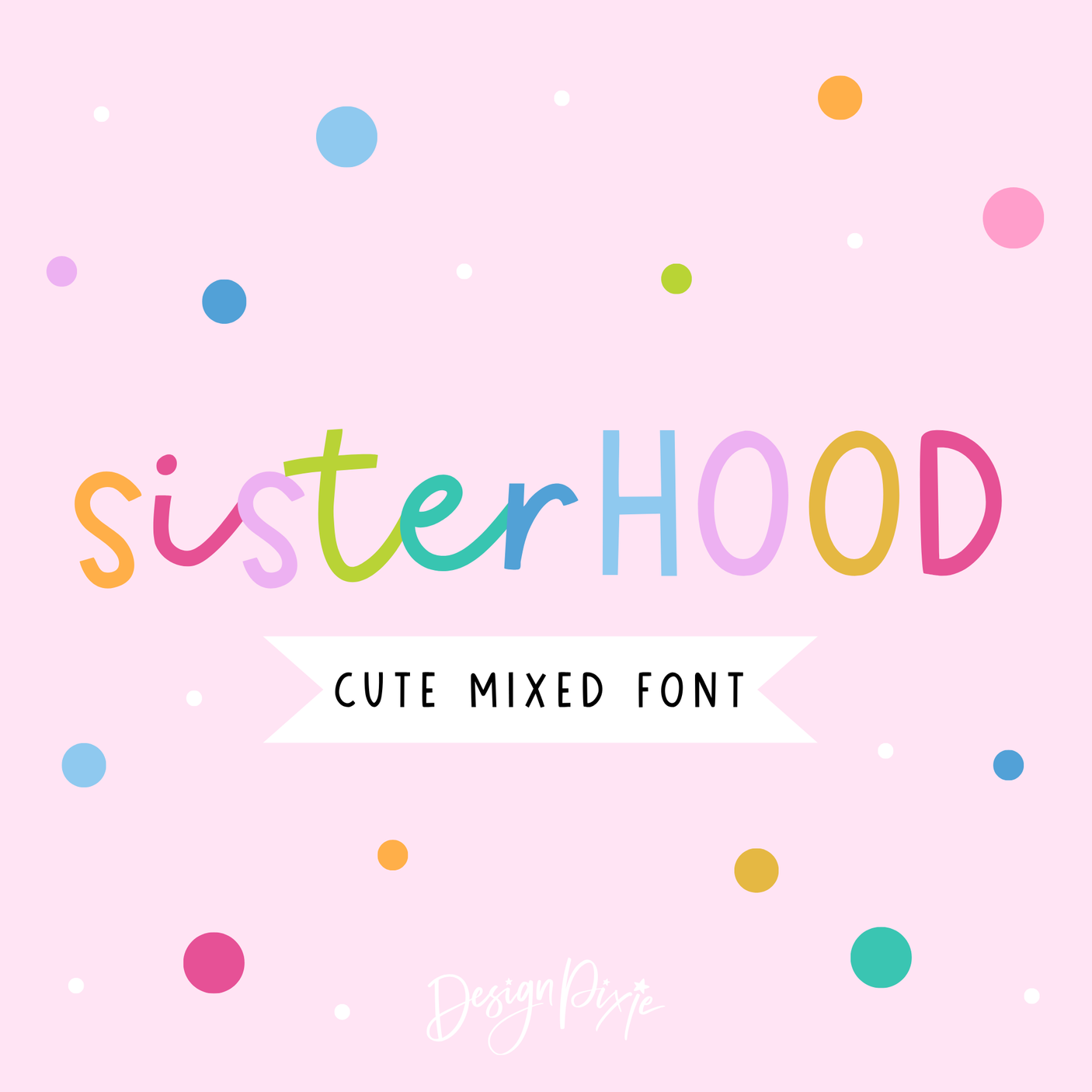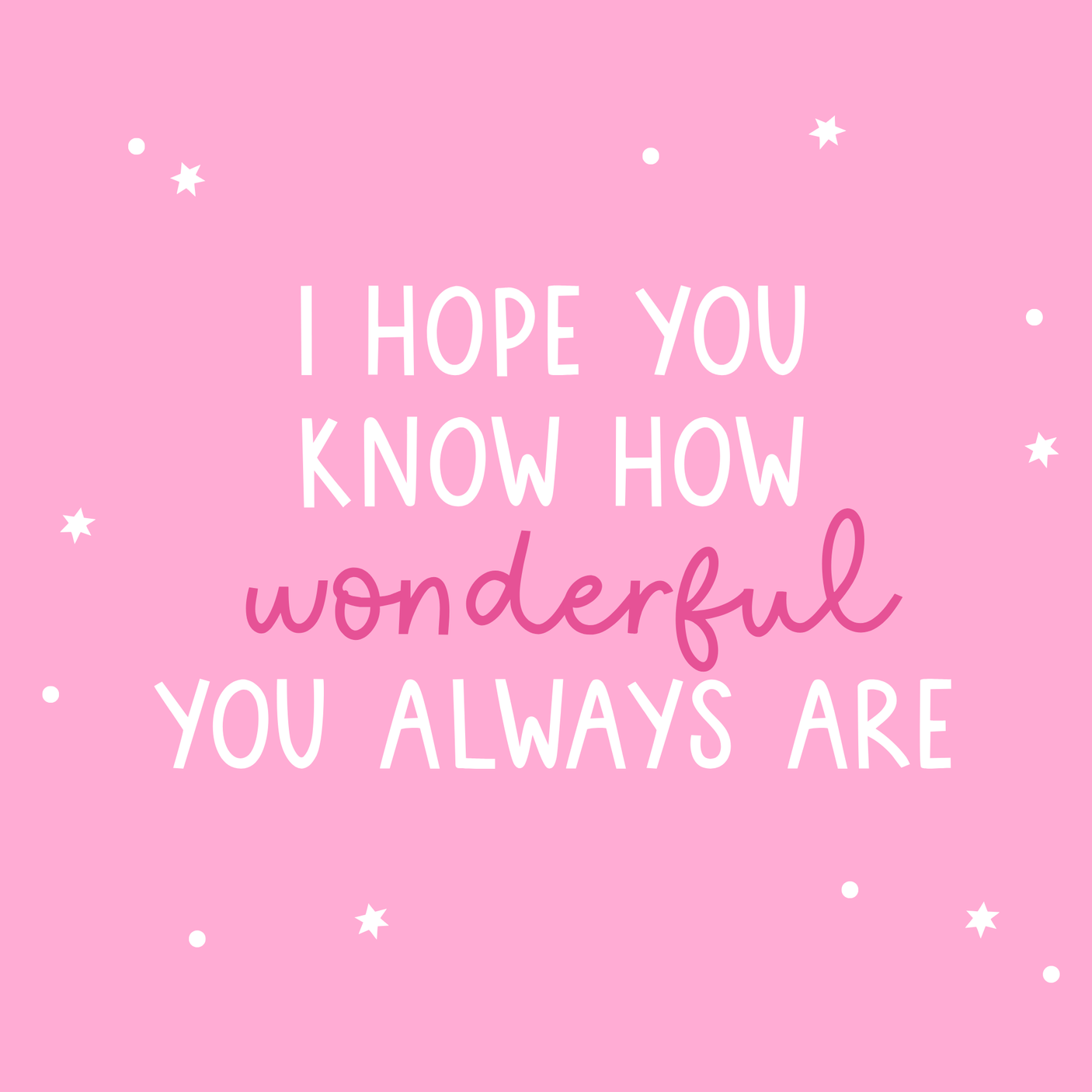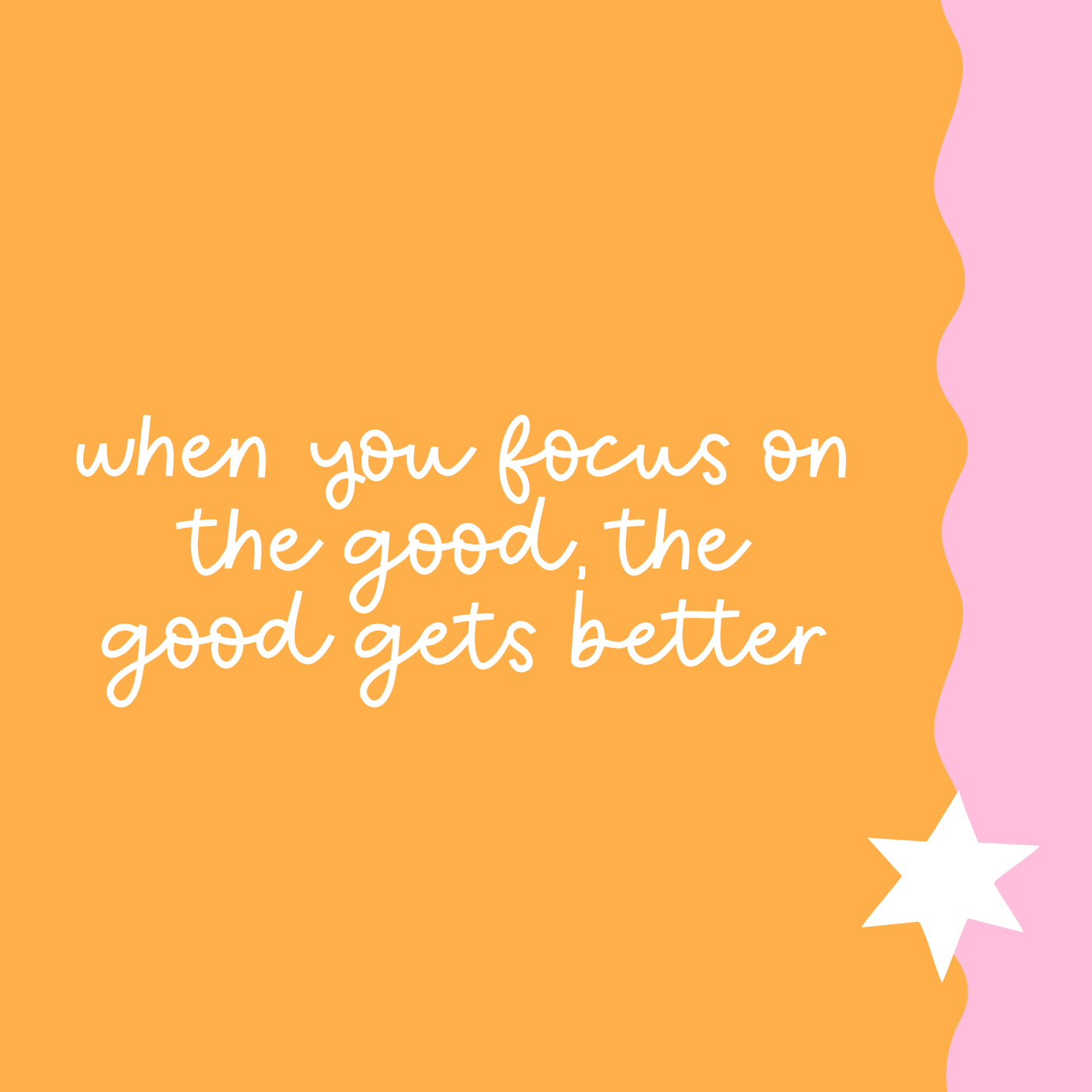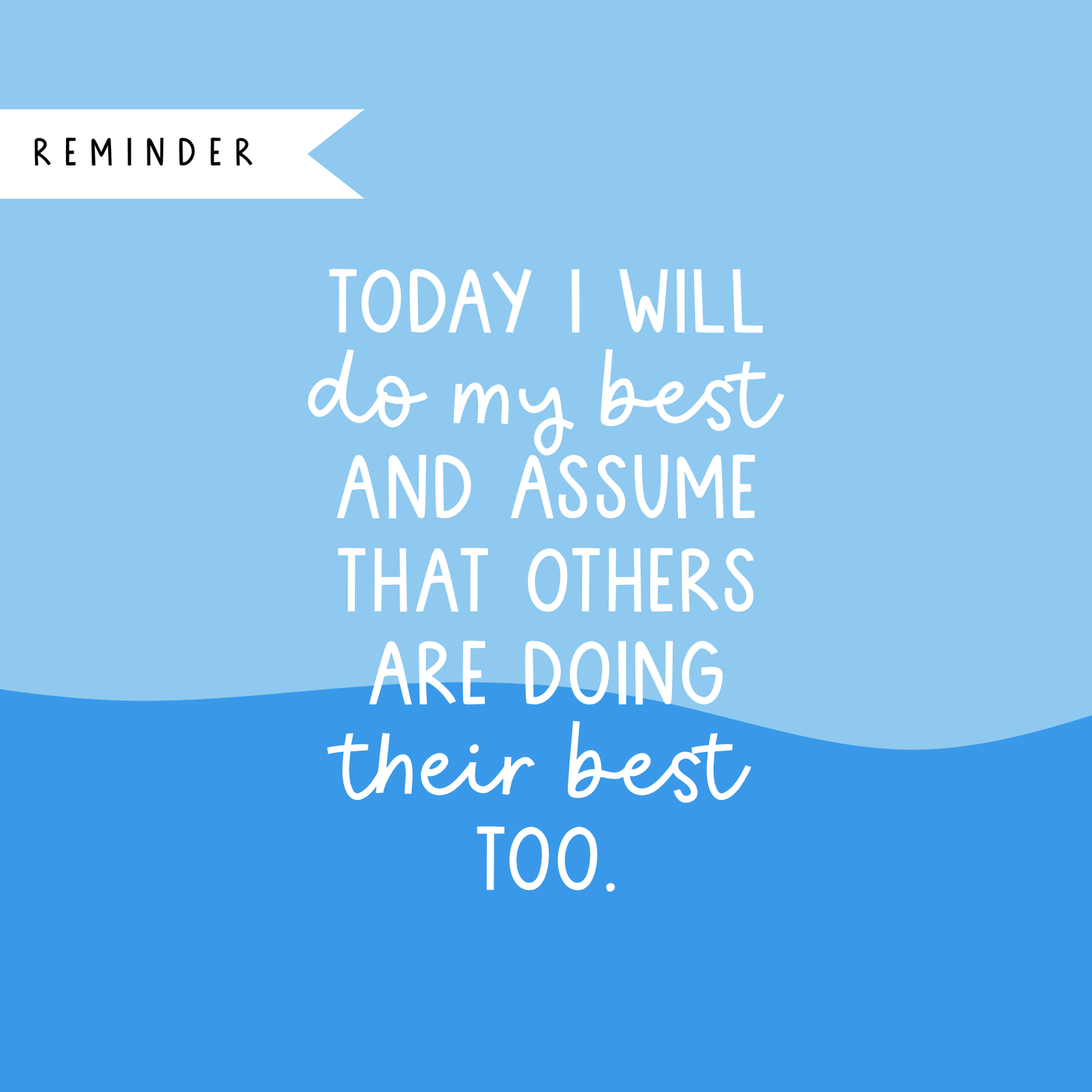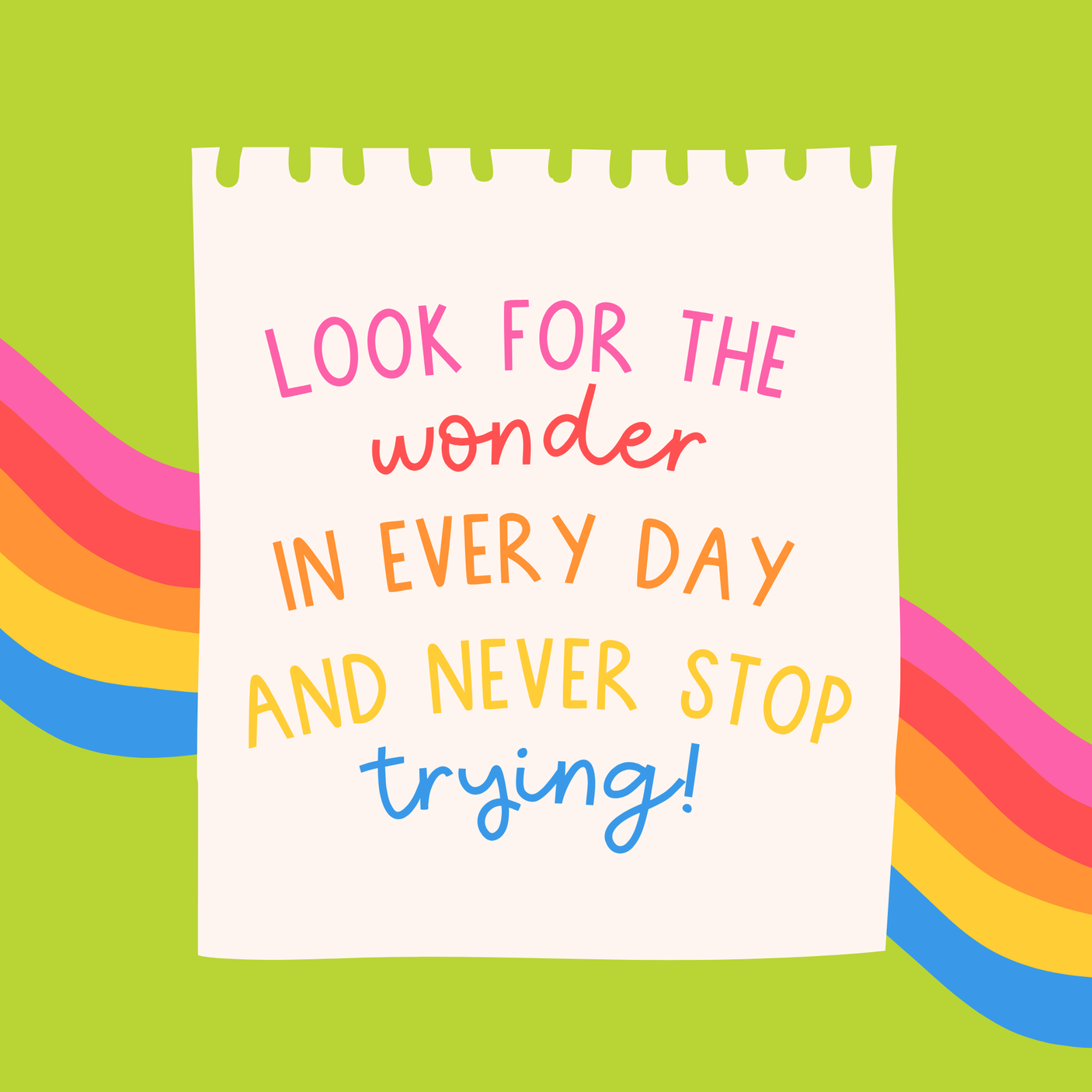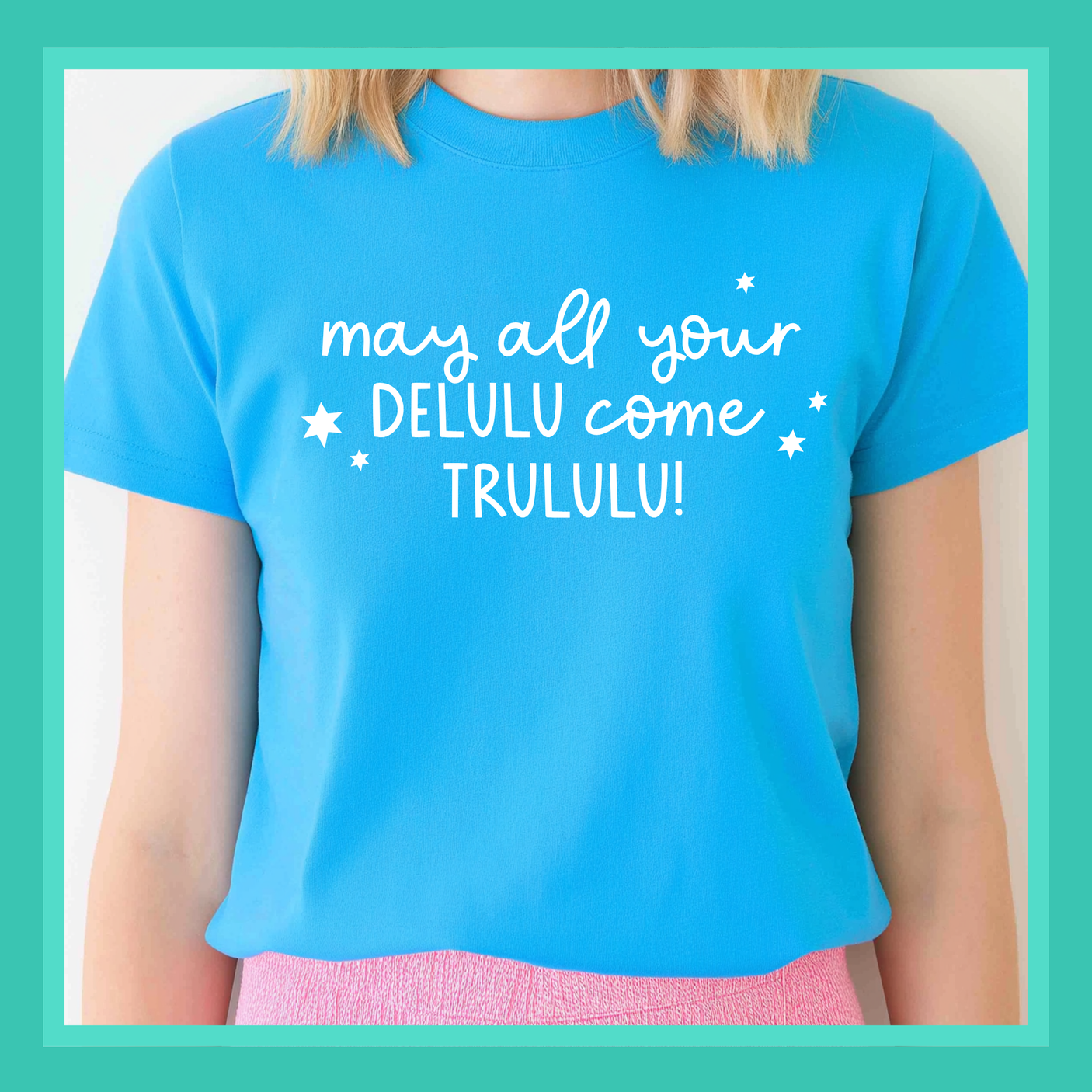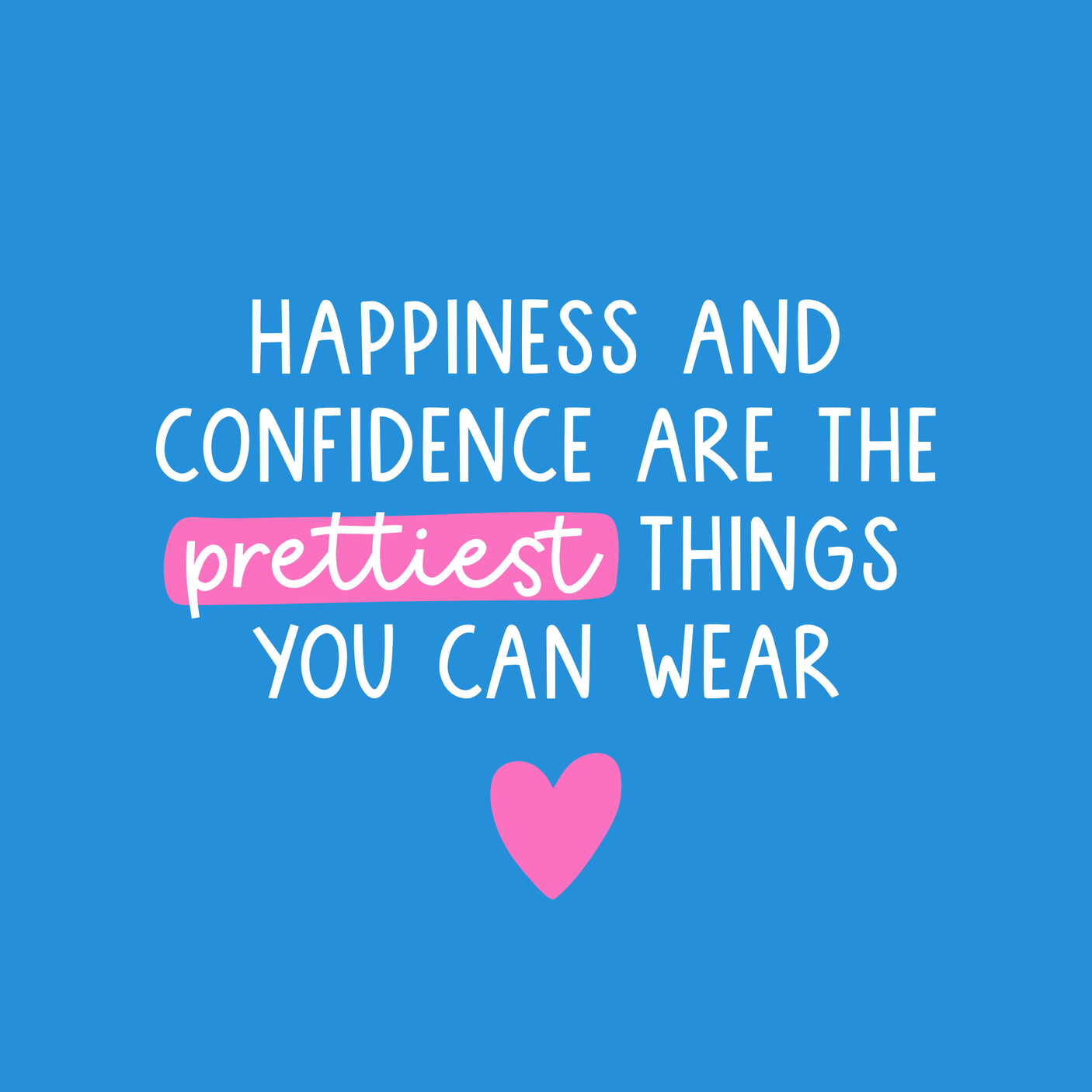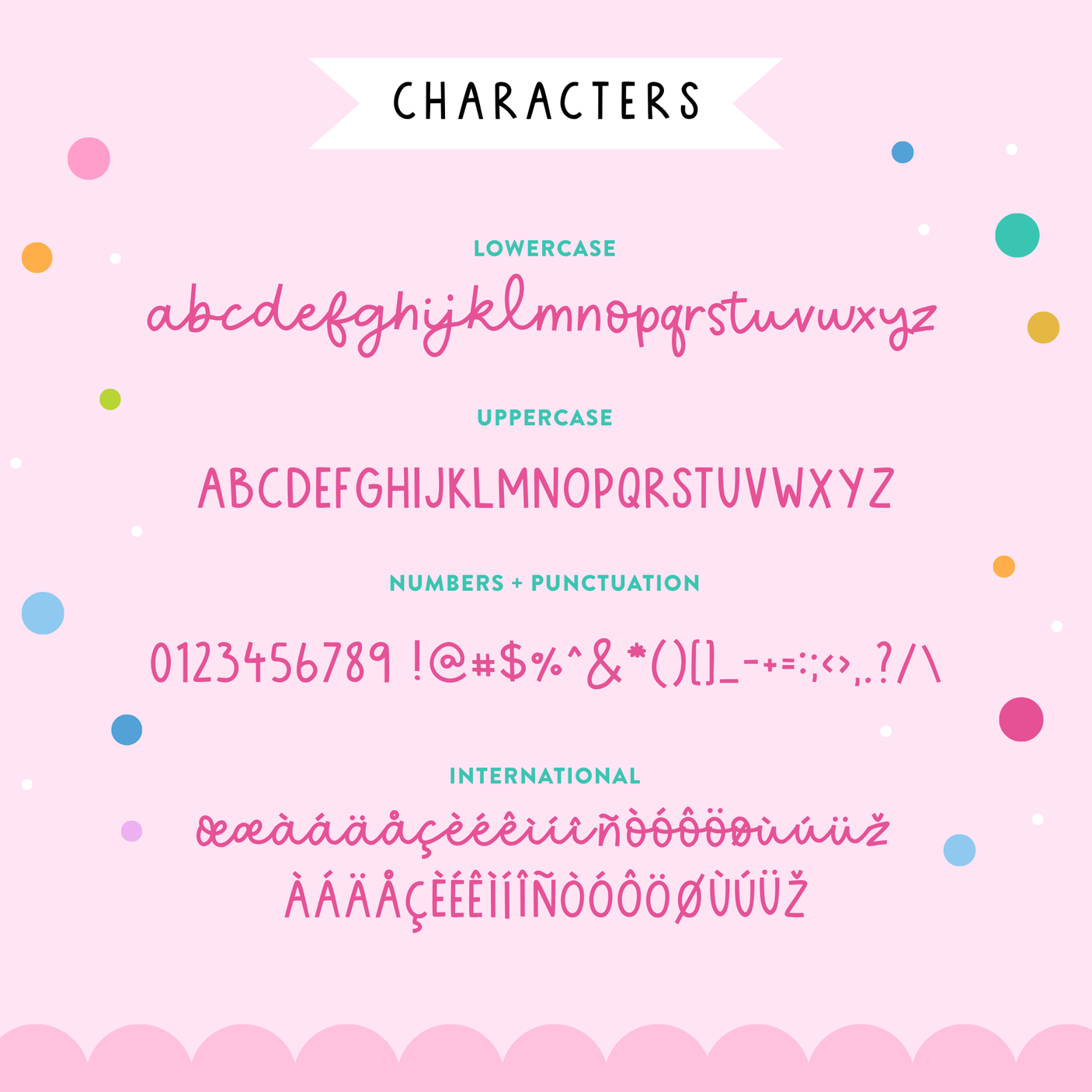
Sisterhood Font
Meet Sisterhood font, a unique handwritten font designed to give your quotes and designs that effortlessly cute, mixed-font look without switching fonts! The lowercase letters feature a flowing, cursive script style, while the uppercase letters have a casual, hand-drawn print. Together, they create a perfectly balanced contrast that feels playful, modern, and full of personality.
Whether you're creating social media graphics, branding, greeting cards, or digital prints, Sisterhood is your go-to font for adding charm and character in a flash.
Why you'll love Sisterhood Font:
- Script-style lowercase letters with a smooth, cursive flow
- Handwriting-style uppercase letters for a casual, fun vibe
- Designed to mix and match beautifully in one single font
- Perfect for quotes, logos, stationery, and more
Create cute, stylish text with zero effort - just type and go!